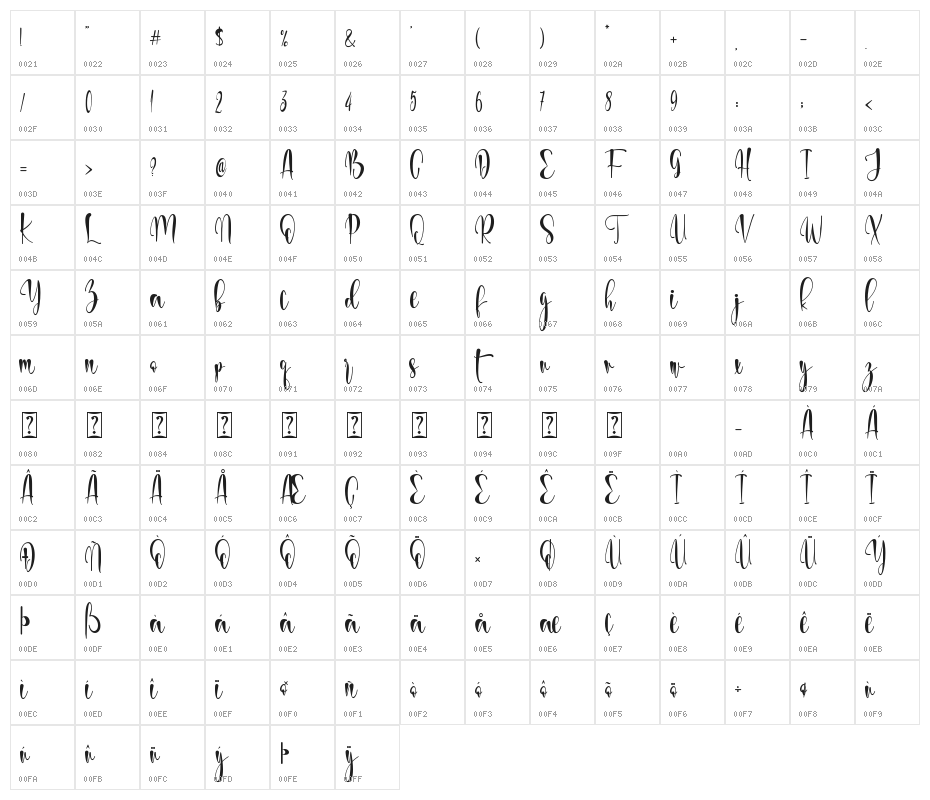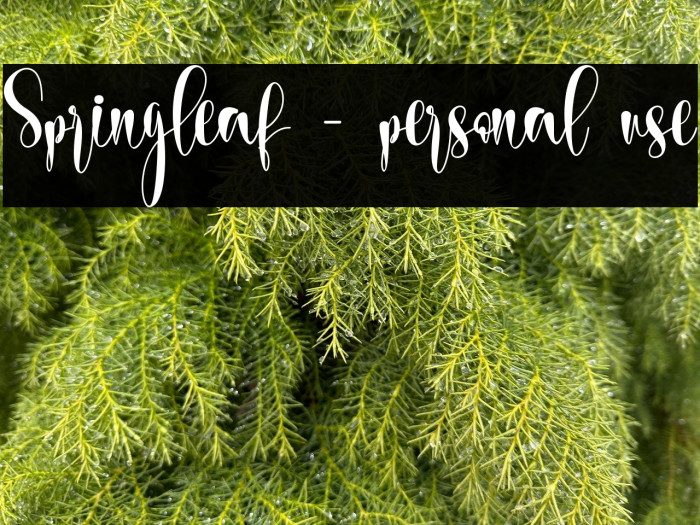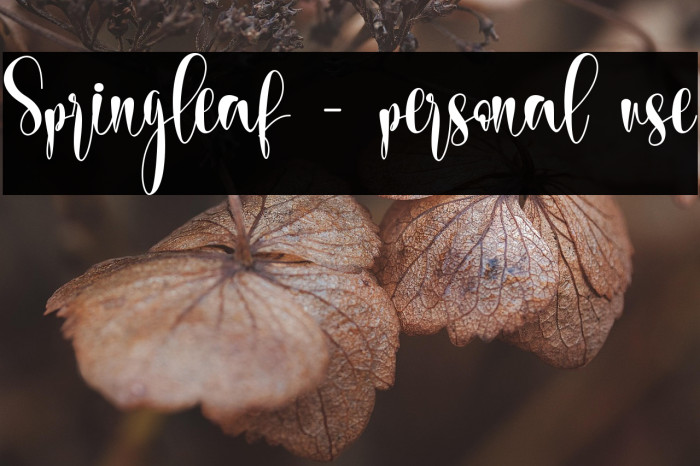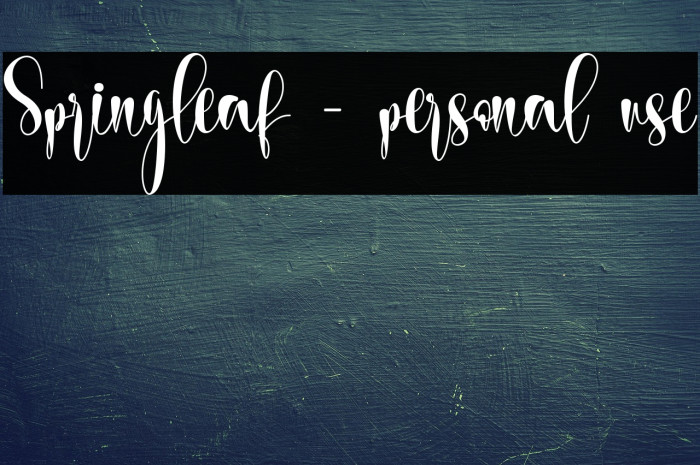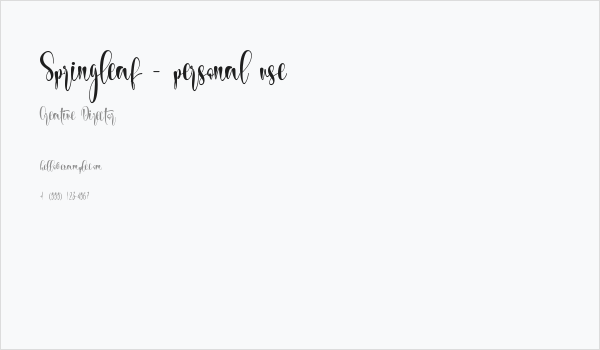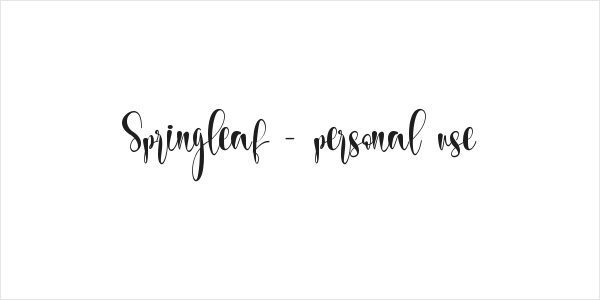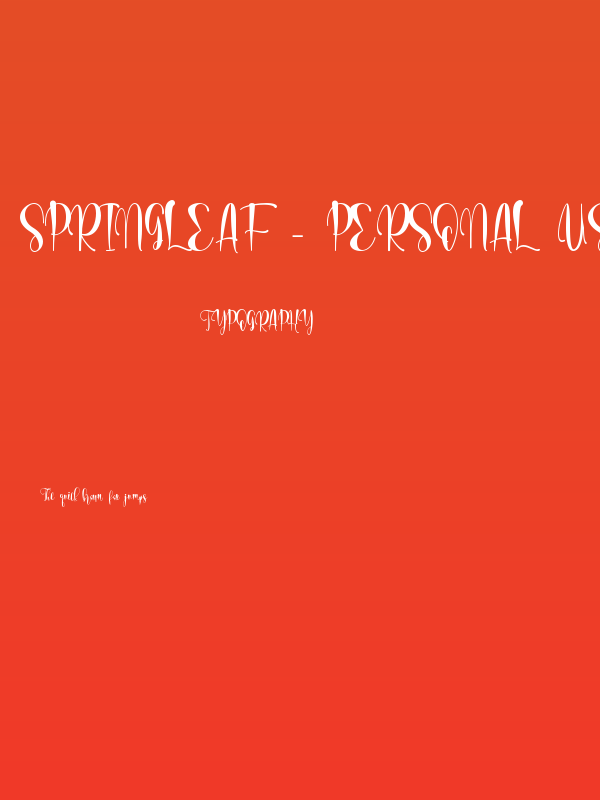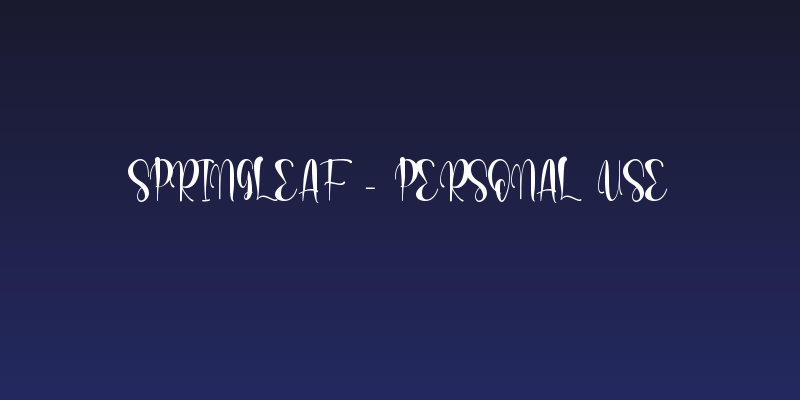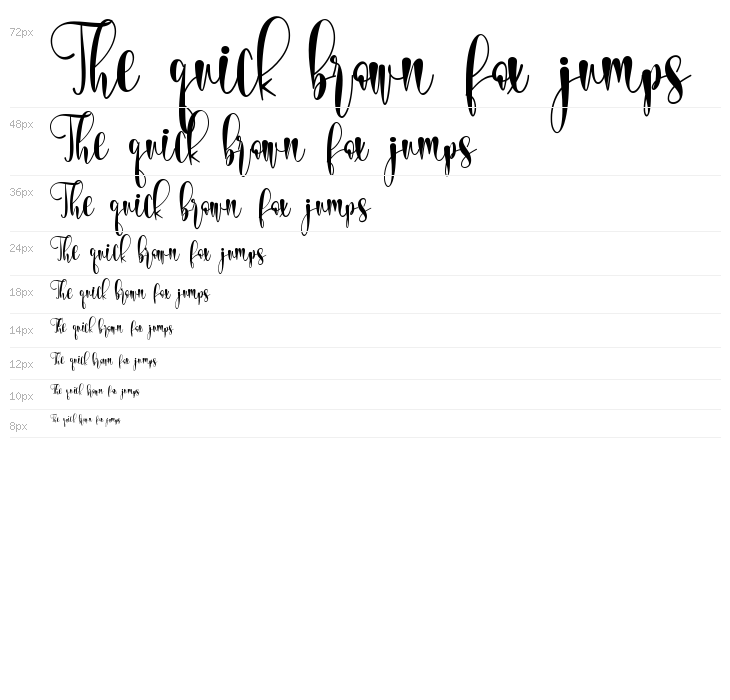
Springleaf - personal use Font
Springleaf - personal use Description
This font features a lively and expressive handwritten style with a modern flair. The characters are elegantly crafted with sweeping curves and varying stroke widths, giving it a dynamic and artistic appearance. The uppercase letters are bold and prominent, while the lowercase letters maintain a fluid and connected script style. Numbers and special characters are designed to complement the overall aesthetic, ensuring consistency across all elements. This font's playful yet sophisticated look makes it suitable for a variety of creative projects.
| Proposed Projects | Ideal for wedding invitations, greeting cards, branding, and social media graphics. |